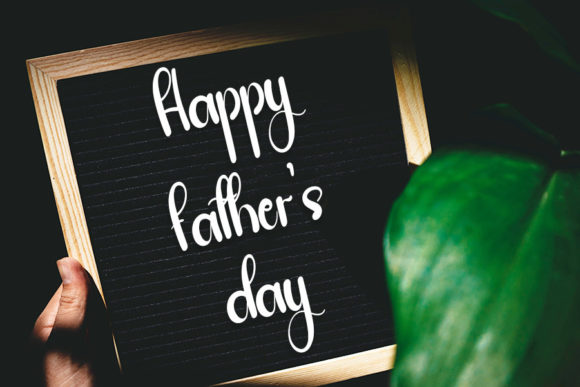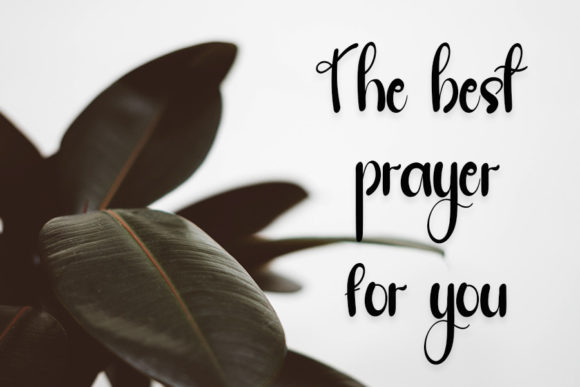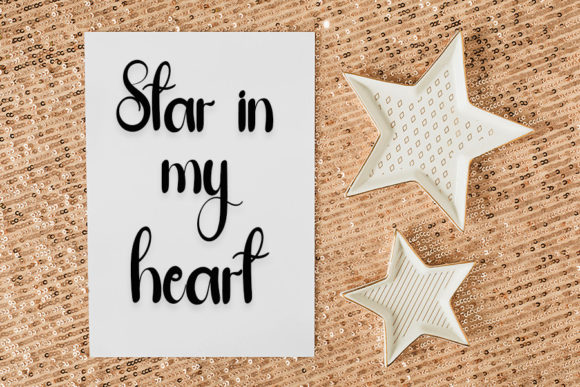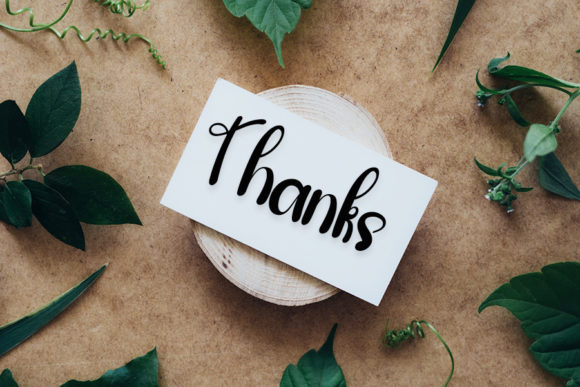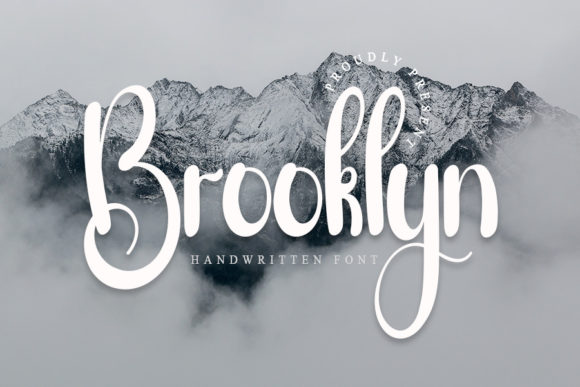
Introducing Brooklyn Font: A Friendly Handwritten Delight
Are you on the hunt for a font that exudes warmth, class, and a touch of modern flair? Look no further than Brooklyn Font, a beautiful handwritten typeface that’s sure to capture your heart. Designed with care and attention to detail, Brooklyn Font seamlessly blends traditional calligraphic influences with a contemporary twist, making it an excellent addition to any design project.
The Charm of Brooklyn Font
Brooklyn Font is more than just a pretty face; it’s a carefully crafted typeface that boasts a unique personality. Its friendly and approachable demeanor makes it perfect for a wide range of applications, from branding and packaging to wedding invitations and digital marketing materials. The font’s classy calligraphic roots are evident in its elegant strokes and flowing lines, while its modern sensibilities ensure it remains fresh and relevant.
PUA Encoding: Unlocking Endless Creative Possibilities
One of the standout features of Brooklyn Font is its PUA (Private Use Area) encoding. This means that you can easily access a vast array of glyphs and ligatures, giving you unparalleled creative freedom. With PUA encoding, you can effortlessly swap out characters, experiment with different combinations, and bring your designs to life in ways you never thought possible.
What Makes Brooklyn Font So Special?
- Handwritten with love: Brooklyn Font is a genuine handwritten typeface, imbued with the imperfections and charm that make it feel truly unique.
- Classy and contemporary: The font’s calligraphic influences are balanced by a modern aesthetic, ensuring it looks great in any context.
- PUA encoded: Unlock a world of creative possibilities with easy access to glyphs and ligatures.
- Multipurpose: Brooklyn Font is versatile enough to be used in a wide range of projects, from digital designs to print materials.
Brooklyn Font is a dream come true for designers and crafters looking to add a personal touch to their work. Whether you’re creating bespoke wedding invitations, designing social media graphics, or crafting unique packaging, this font is sure to become a trusted companion. Its friendly and approachable nature makes it easy to work with, while its versatility ensures it will adapt to any design brief.
Tips for Using Brooklyn Font
- Experiment with sizes: Brooklyn Font looks great in a range of sizes, from large headings to smaller body text.
- Play with colors: The font’s elegant lines and curves look stunning in a variety of colors, from bold brights to muted pastels.
- Mix and match: Combine Brooklyn Font with other typefaces to create striking contrasts and visually appealing designs.
In conclusion, Brooklyn Font is a true gem in the world of typography. Its unique blend of classy calligraphic influences and modern flair makes it an excellent choice for designers and crafters looking to add a touch of personality to their work. With its PUA encoding and effortless charm, Brooklyn Font is sure to become a favorite in your design arsenal. So why wait? Discover the magic of Brooklyn Font today and take your designs to the next level!